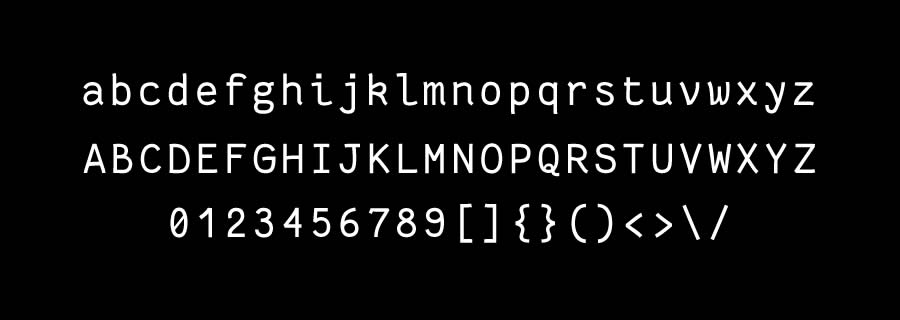
Monospaced fonts are typefaces in which each character takes up the same amount of horizontal space. This uniformity is key for coding and programming, where alignment and readability can significantly reduce efficiency and error.
Choosing the right font for these tasks is more important than it might seem at first glance. A good font can reduce eye strain, help distinguish between similar characters, and even improve concentration during long coding sessions.
This article shares a collection of free monospaced fonts specifically designed for code developers. Each font caters to the needs of those who regularly write code, aiming to make their work a little easier and perhaps even more enjoyable.
Finding the right monospaced font could make all the difference in your coding experience. Choose wisely!
Coding Font Characteristics
The font you choose for coding is critical to your work. A good monospaced coding font isn’t about style, but function.
Here’s what you should look for when choosing your monospaced font:
- Uniformity & Spacing: Each character in a monospaced font occupies the same amount of horizontal space. This uniformity is important for aligning code in a way that’s easy to follow. Proper spacing helps distinguish code blocks, making spotting errors or understanding the structure easier.
- Readability & Legibility: Spending hours staring at code means you need a font that’s easy on the eyes. A good coding font will be clear and sharp, reducing eye strain. It should be legible in various sizes.
- Distinction Between Similar Characters: In coding, confusing a zero
0with the letterO, or a lowercase L (l) with the number one (1), can lead to mistakes that are hard to track down. A well-designed monospaced font will have clear distinctions between these similar characters, often through subtle design cues like a slashed zero or a tailored shape for the letter L.
These characteristics are fundamental in a coding font because they directly impact productivity and accuracy.
The Top Monospace Fonts for Coding
These monospaced fonts cater to various programming needs, from classic font choices known for their reliability to modern typefaces that blend aesthetics with functionality. Explore the options below, and find the font that resonates with your style.
Anonymous Pro
The popular Anonymous Pro stands out for its clarity and readability, making it an excellent choice for coding and text editing. It comes in four styles: regular, italic, bold, and bold italic. Each style maintains the font’s distinctive look, ensuring text is easy to read.
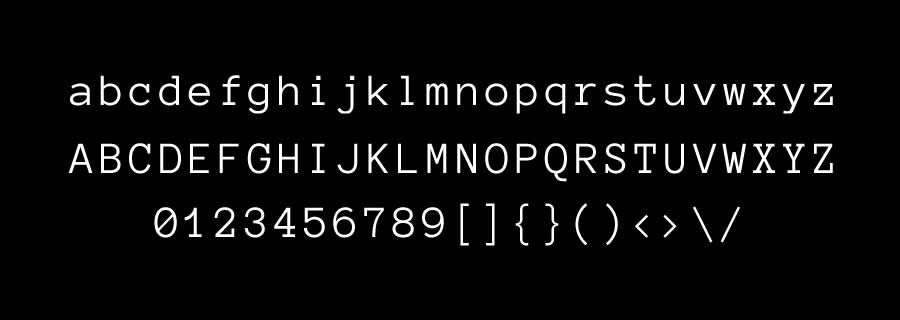
Inconsolata
Inconsolata has been created to improve the readability of text, especially in coding environments. Its popularity among developers is a testament to its practicality and aesthetic appeal. It is available in two weights, regular and bold. It is also available on Google Fonts.
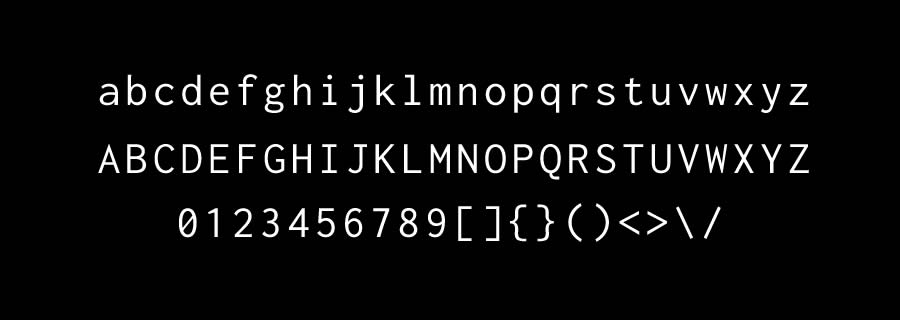
Meslo LG
Meslo LG is a custom version of the popular mono font Menlo, fine-tuned with a focus on coding. It offers features like adjusted line spacing and larger character sets. This monospaced font’s clear distinction between similar characters makes it a favorite among developers.
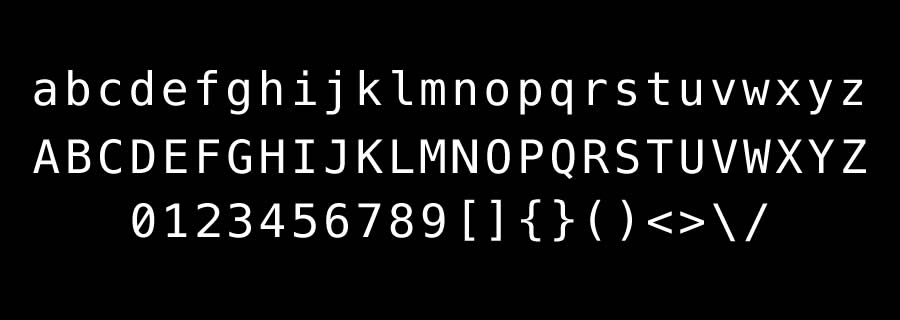
Vera Sans Mono
Vera Sans Mono, designed by Jim Lyles and part of the Bitstream Vera font family, is designed for clarity in coding and text editing. It comes in four styles: Regular, Oblique, Bold, and Bold Oblique.
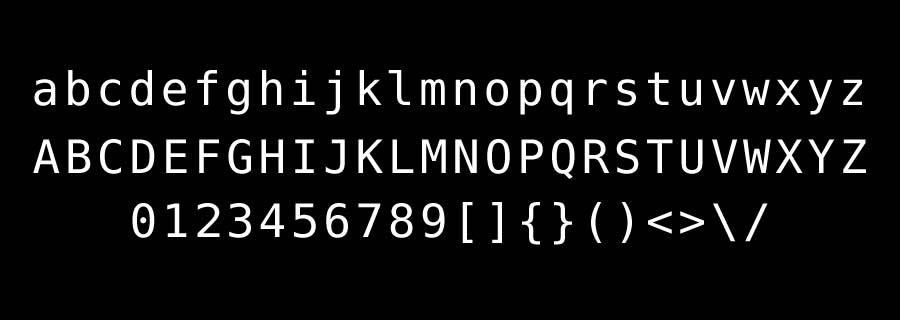
Fira Mono
Fira Mono is part of Mozilla’s Fira font family. It has been designed to optimize readability in coding environments. Fira has open shapes and clear character distinction, helping to reduce the likelihood of confusion during coding. It is available in Regular, Medium, and Bold.
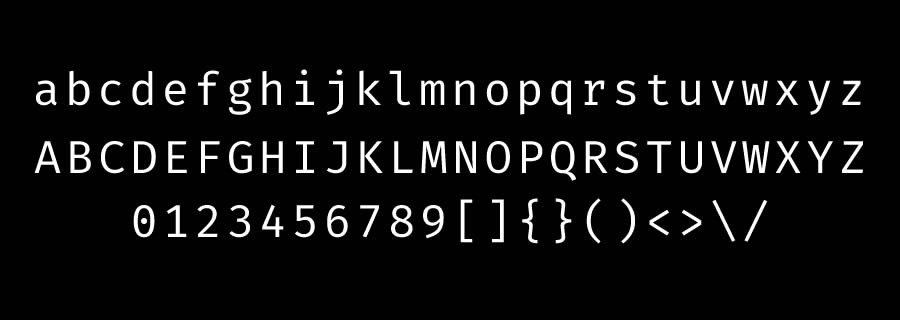
PT Mono
PT Mono is a monospaced font from the ParaType foundry. It offers excellent readability for coding, data entry, and even content creation. It comes in a single weight, giving you a precise, clean look. It is a popular choice for those looking for precision and simplicity in their work environment.
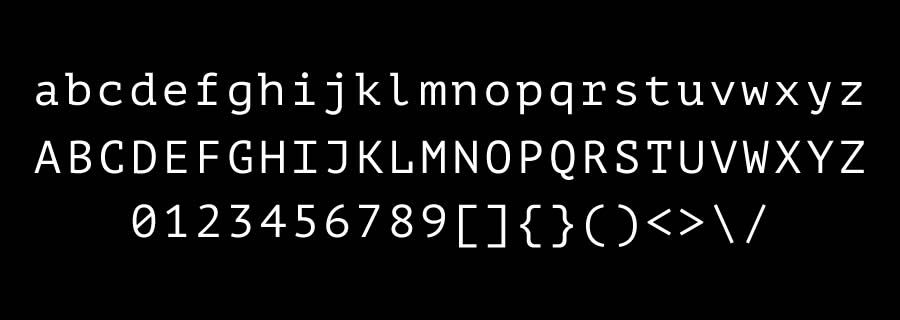
Envy Code R
Created by Damien Guard, Envy Code R is known for its blend of clarity and style. It is available in light, regular, and bold weights. Its features include a compact design that allows more characters per line and distinctive letterforms that help distinguish similar characters.
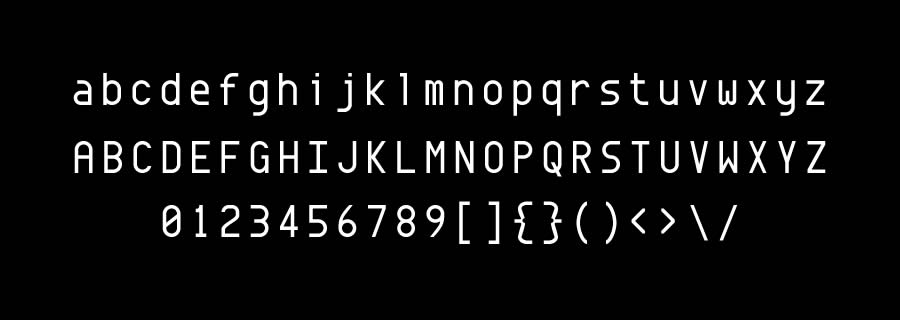
Ubuntu Mono
Dalton Maag designed Ubuntu Mono for the Ubuntu operating system. It was created to improve readability and user experience in coding and terminal usage. Ubuntu Mono’s commitment to clarity and functionality makes it a popular font for developers. It comes in four styles: Regular, Italic, Bold, and Bold Italic.
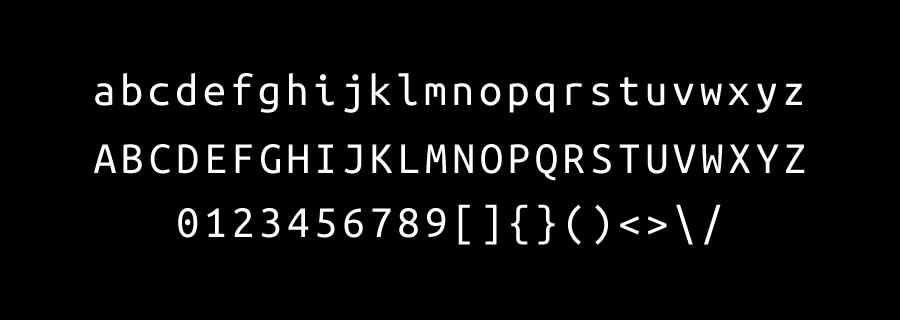
Liberation Mono
Steve Matteson designed Liberation Mono as an alternative to popular monospaced fonts like Courier. Available in four styles: Regular, Italic, Bold, and Bold Italic, it ensures clear legibility and efficient use of space, making it ideal for most coding environments.
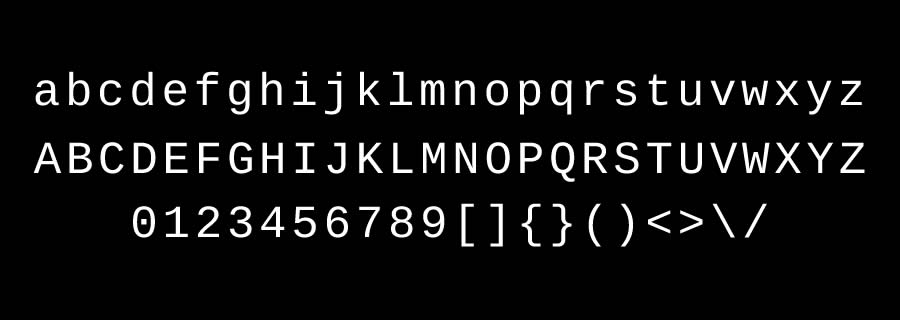
The right font can help prevent errors, reduce eye strain, and even make coding more enjoyable. Every coder has unique preferences, influenced by factors like character distinction, spacing, and overall readability.
That’s why it’s worth taking some time to experiment with different monospaced fonts to find the one that best fits your individual needs.